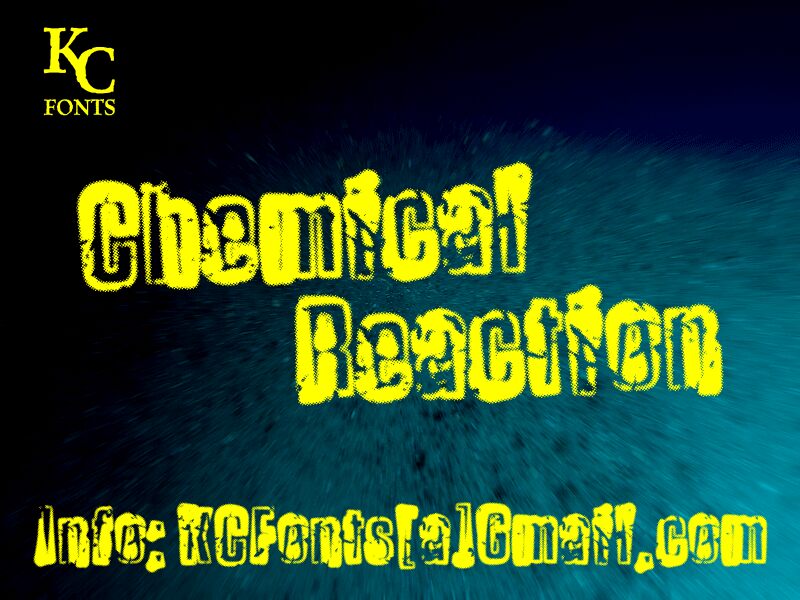
Chemical Reaction by Kevin Christopher of KC Fonts is a free eroded outline display font with warped letterforms and a harsh photocopied texture. Its uneven contours, broken inner lines, and dense black scuffs make the lettering look chemically damaged rather than simply weathered.
Its punk edge suits gig posters, album packaging, and streetwear graphics. In magazine covers and music editorials, the fractured outlines can become part of the page's collage texture.